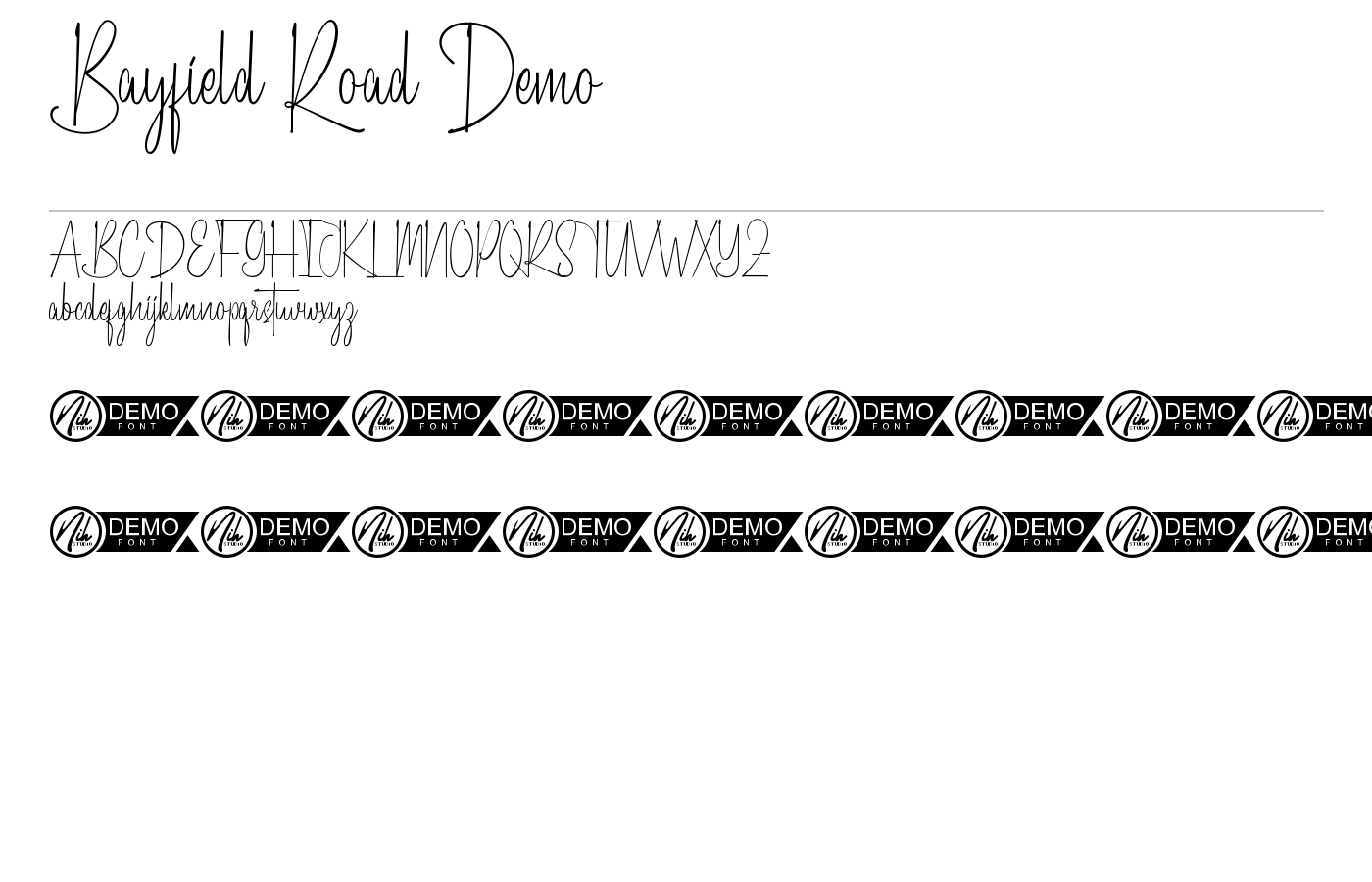
Bayfield Road Demo is a delicate, tall, and narrow handwritten script font with a playful yet elegant feel. Its thin strokes and airy letterforms create a light, whimsical style perfect for creative and personal branding, invitations, or artistic projects that seek a touch of sophistication and charm. This font works best in designs where a graceful, individualistic look is desired rather than heavy readability for long texts.
Bayfield Road Demo Font
About Bayfield Road Demo Font
| Font family | Bayfield Road Demo Font |